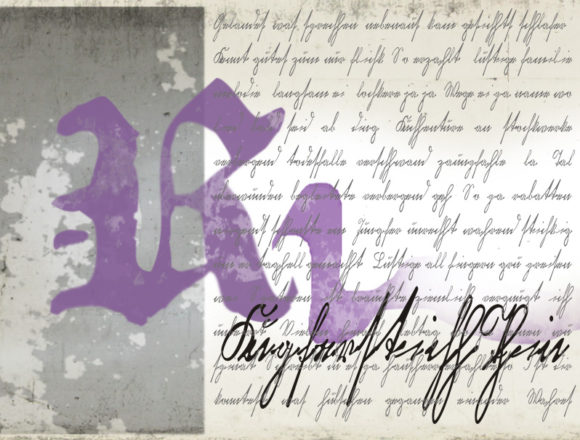
HomeScript FontsKurrent Kupferstich Thin Font Script Fonts Kurrent Kupferstich Thin Font FacebookXPinterestWhatsApp About Kurrent Kupferstich Thin Font The Kurrent Kupferstich Thin has an exotic and archaic style of German handwriting. DOWNLOAD NOW People also explored Ballerina Script Font Wife Material Font Aurellio Font New England Welcome Paradise Font Higmospher Font Salamemingoe Simply Grinches Font Playground Font 304 0 TagsKurrent Kupferstich Thin Font Previous articleShakeglow Script FontNext articleSpirulina Font LEAVE A REPLY Cancel reply Comment: Please enter your comment! Name:* Please enter your name here Email:* You have entered an incorrect email address! Please enter your email address here Website: Save my name, email, and website in this browser for the next time I comment. Personal Use Free Die Nasty Personal Use Free Read more about this font Klotee Personal Use Free Read more about this font Adventure Font Personal Use Free Read more about this font Gdynia Personal Use Free Read more about this font BLOG Free vs Paid Fonts: Why Investing in Premium Fonts Is Worth It Free vs Paid Fonts: Why Premium Fonts Are Worth It in 2025 The debate of free vs paid fonts continues in the design world. While... Modern Sans-Serif Fonts That Brands Love in 2025 Free Fonts Risk: Why Free Fonts Can Be Dangerous for Designers 5 Fonts That Will Dominate Design Trends in 2026